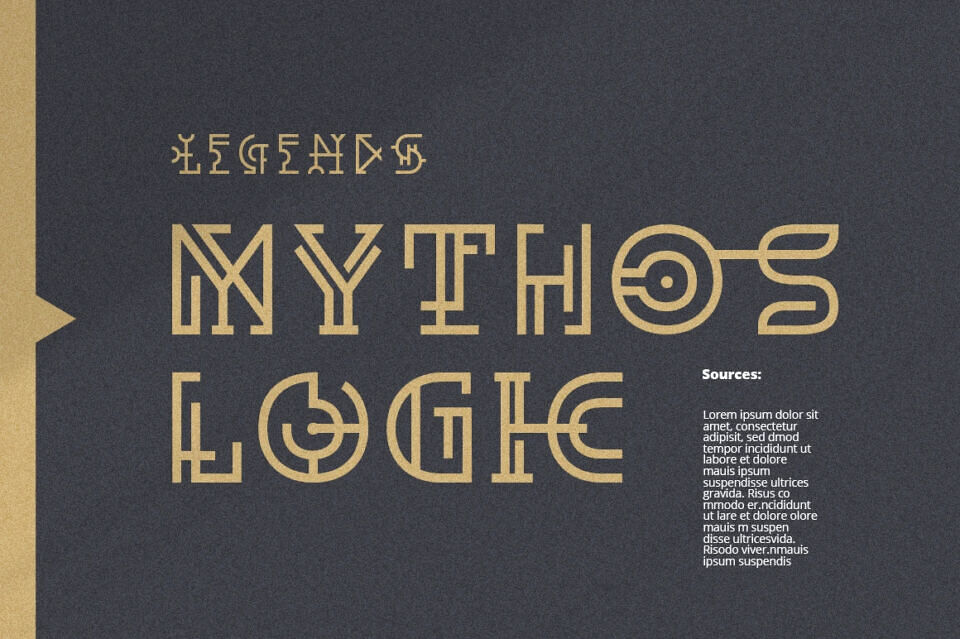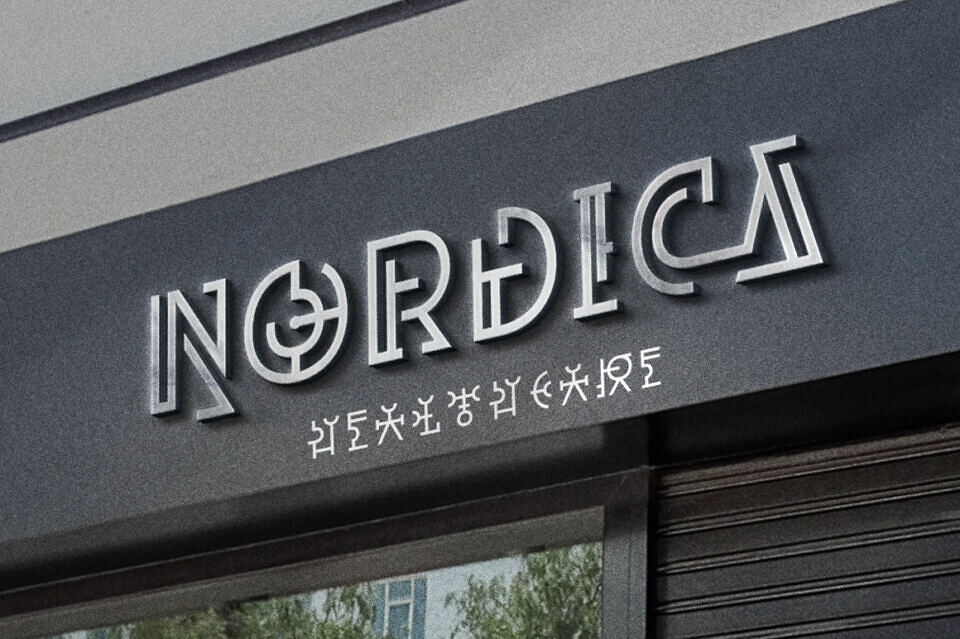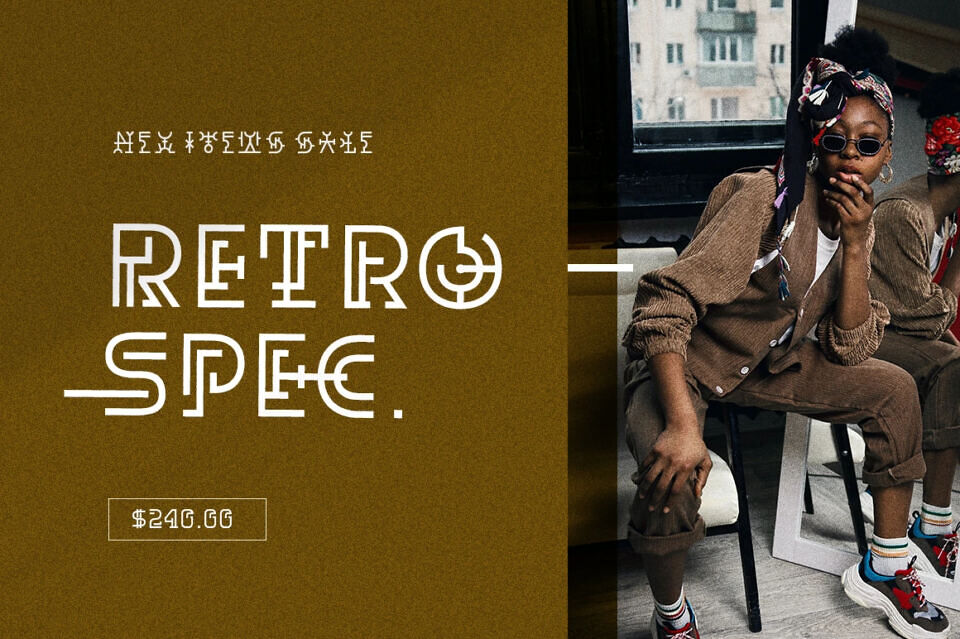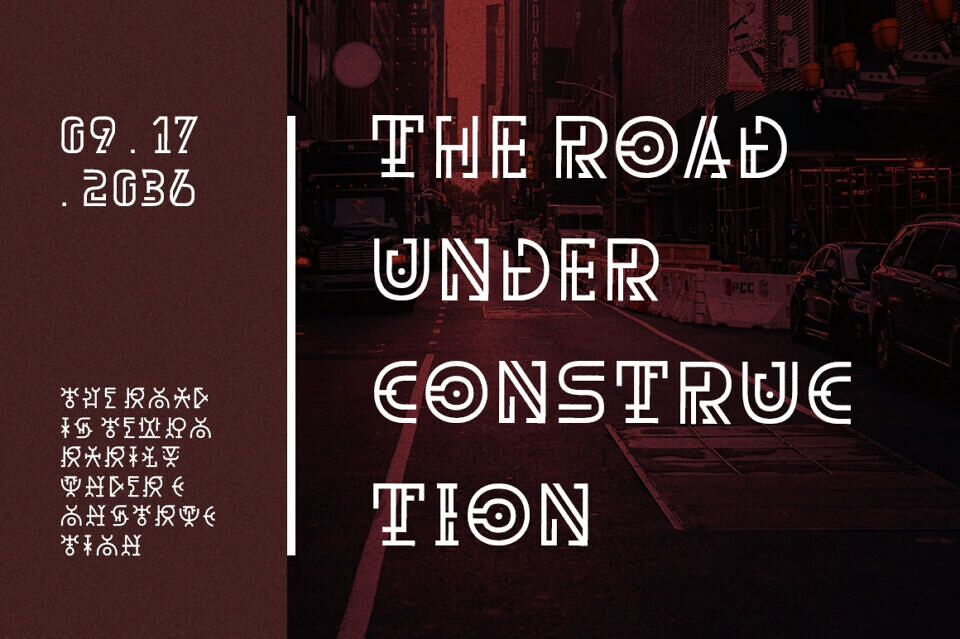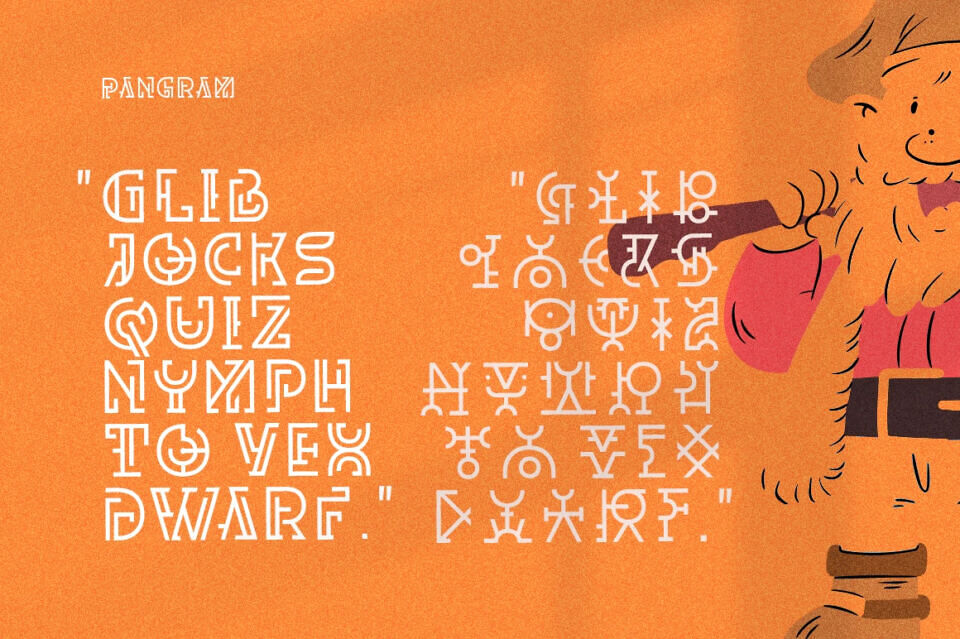
Dritch Font
Dritch is a mystical font with a unique and modern geometric style. It works with different themes such as mystical, tribal, ethnic, magical, and fantasy. Friendly and charismatic in lowercase, sophisticated and authoritative in uppercase.
Hard lines and sharp corners mesh with smooth, rounded letterforms, while humanist nuances and warmth. This Font is suitable for logos, quotes, social media posts, film titles and stationary.